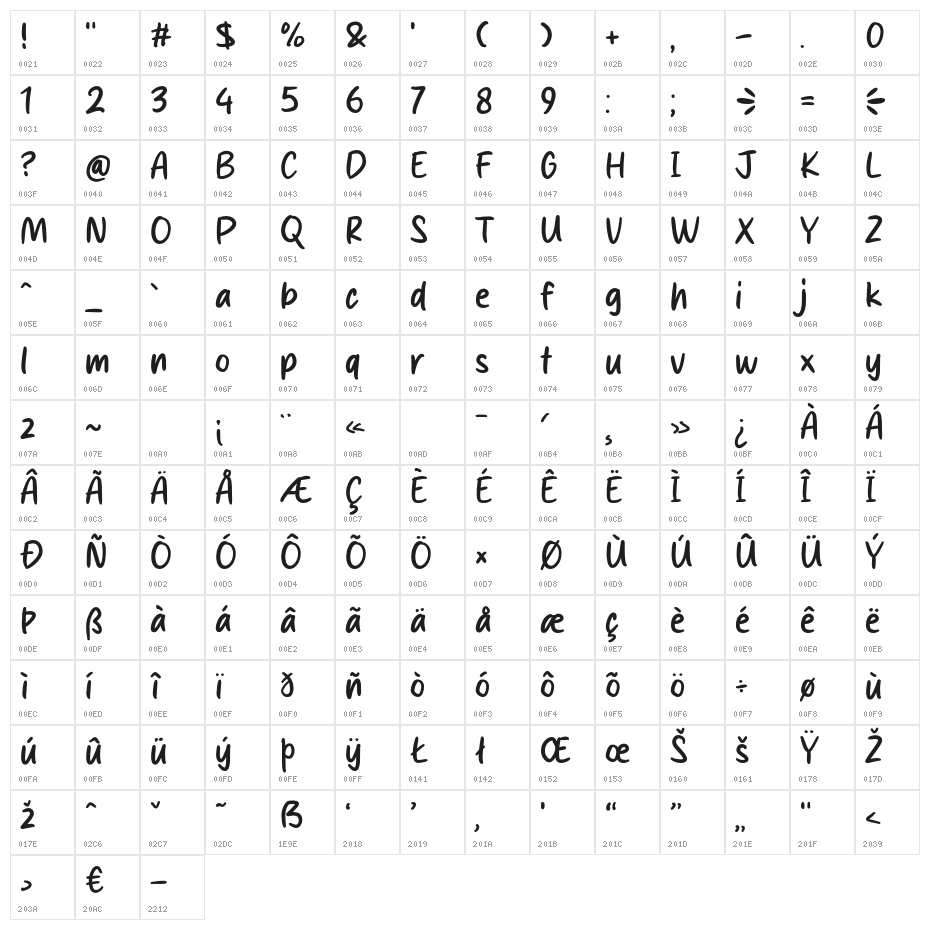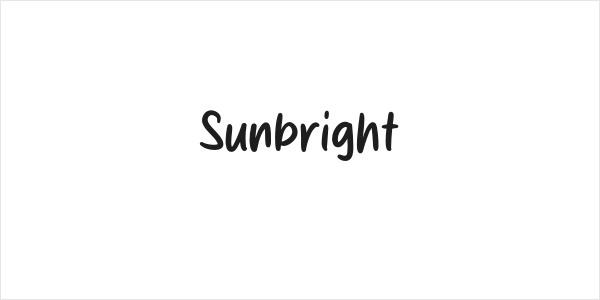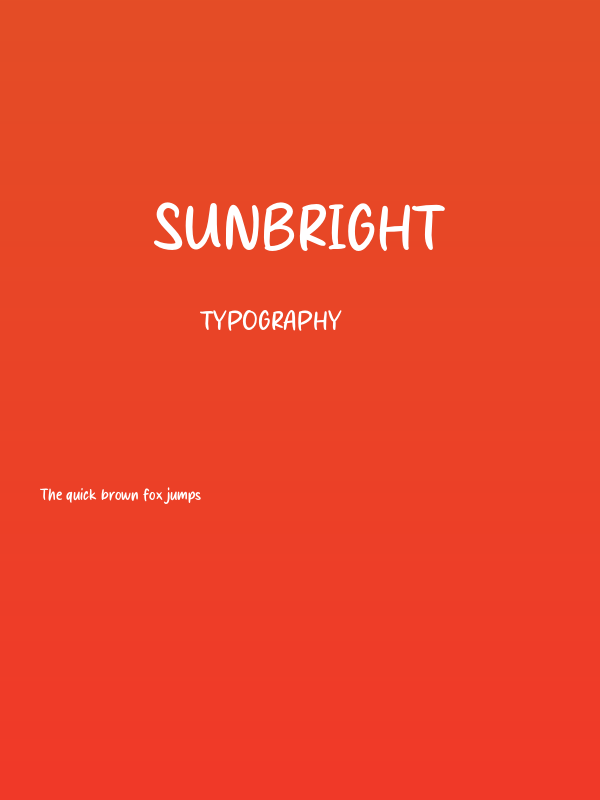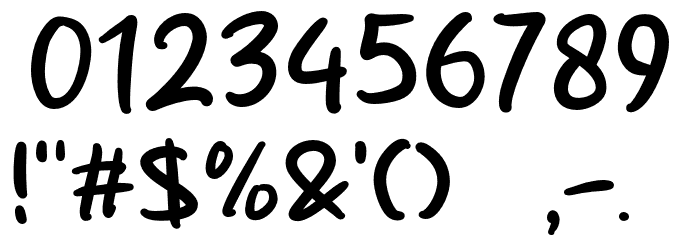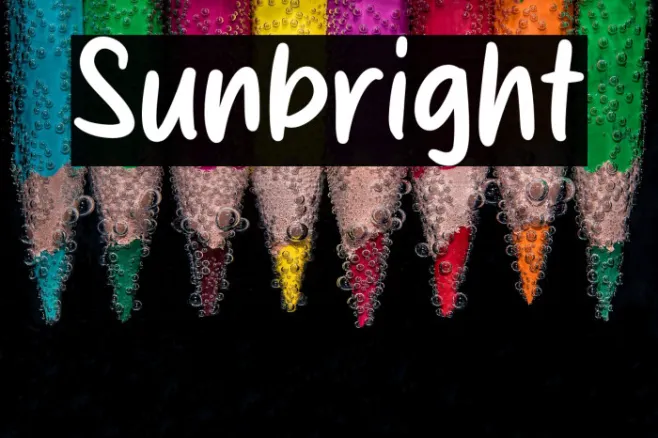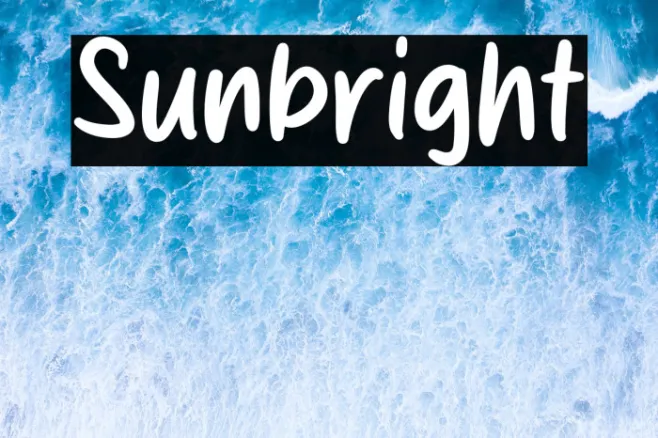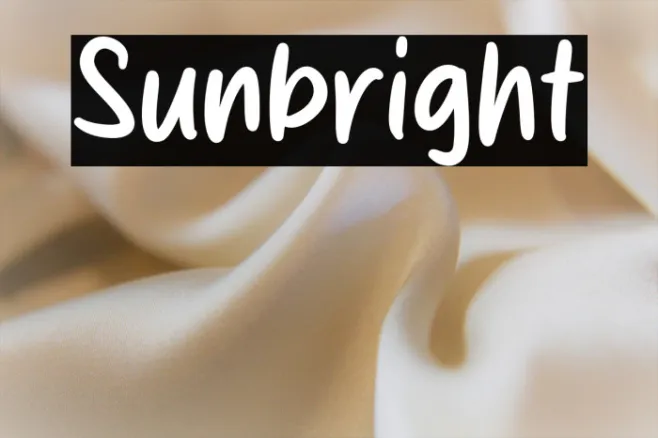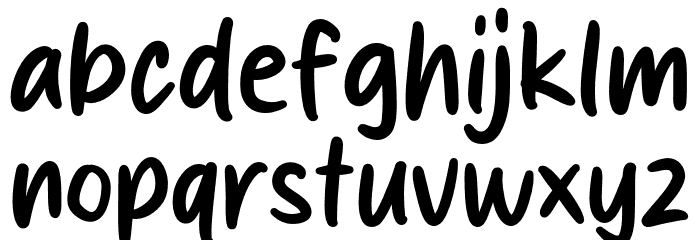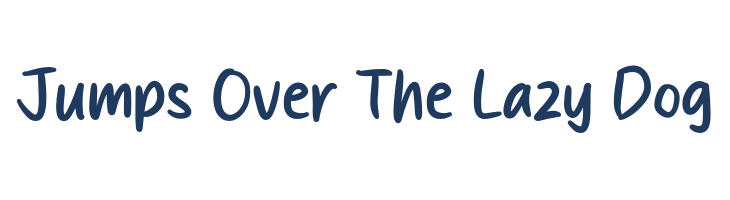
Sunbright Font
Sunbright Description
This font exudes a playful and casual handwritten style, characterized by its smooth, rounded edges and slightly irregular strokes that mimic natural handwriting. The letters are bold and slightly condensed, giving them a strong presence while maintaining a friendly and approachable feel. The font's consistent stroke width provides a harmonious look, making it suitable for informal and creative projects. Its legibility is enhanced by the clear distinction between uppercase and lowercase letters, as well as the well-defined numerals and special characters.
| Use Case | Logos, Headlines, Informal Text |
| Proposed Projects | Ideal for greeting cards, children's books, playful branding, and social media graphics. |